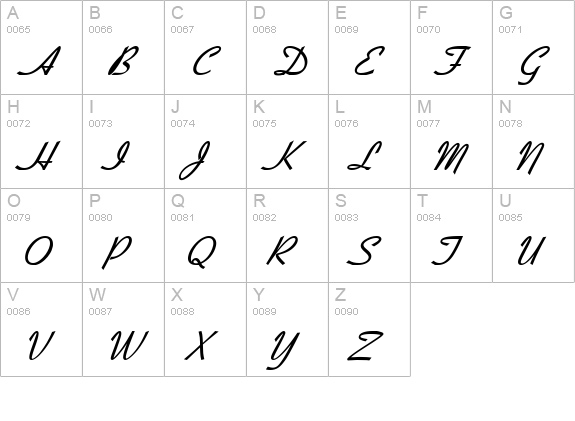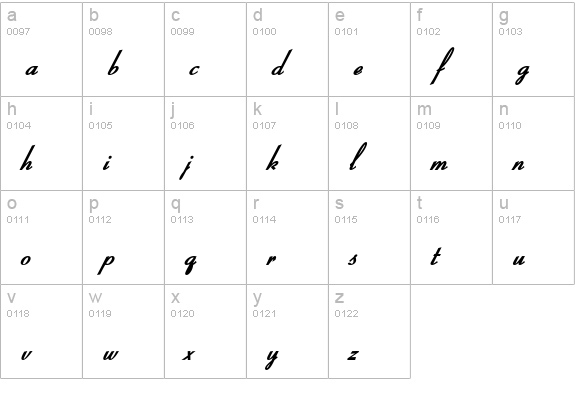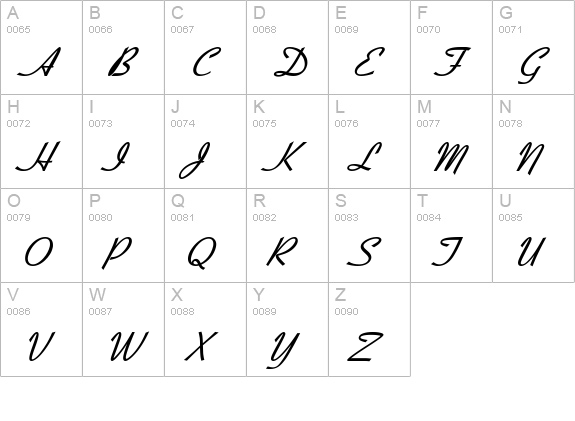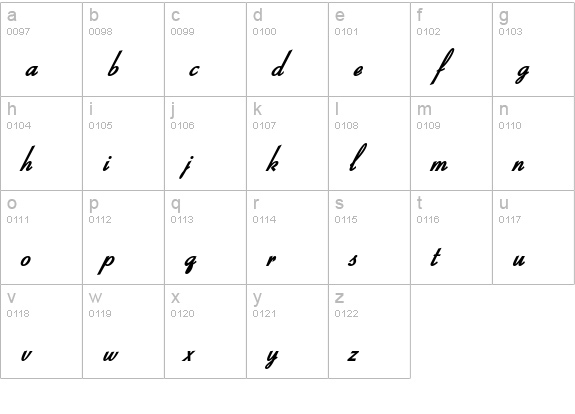
Bow Bold Italic is a strong, high-contrast, italic variant in the Bow typeface family \xE2\x80\x94 well suited to headlines, attention-grabbing titles, and strong calls-to-action.
Introducing Bow Bold Italic font - a sleek and stylish typeface that exudes confidence and sophistication. Its bold and italicized design adds a touch of elegance to any project, making it perfect for headings, logos, and other creative designs. The curved lines and unique shapes of Bow Bold Italic font make it stand out from the crowd, giving your text a modern and dynamic look. What's even better is that Bow Bold Italic font is available for free download at FontsMarket.com. This means you can easily access this stunning font and use it in your projects without any cost. Whether you're working on a professional presentation, a personal project, or anything in between, Bow Bold Italic font is sure to elevate your design to the next level. Don't miss out on this fantastic opportunity to enhance your creativity with this remarkable typeface. Download Bow Bold Italic font now and let your text make a bold statement!